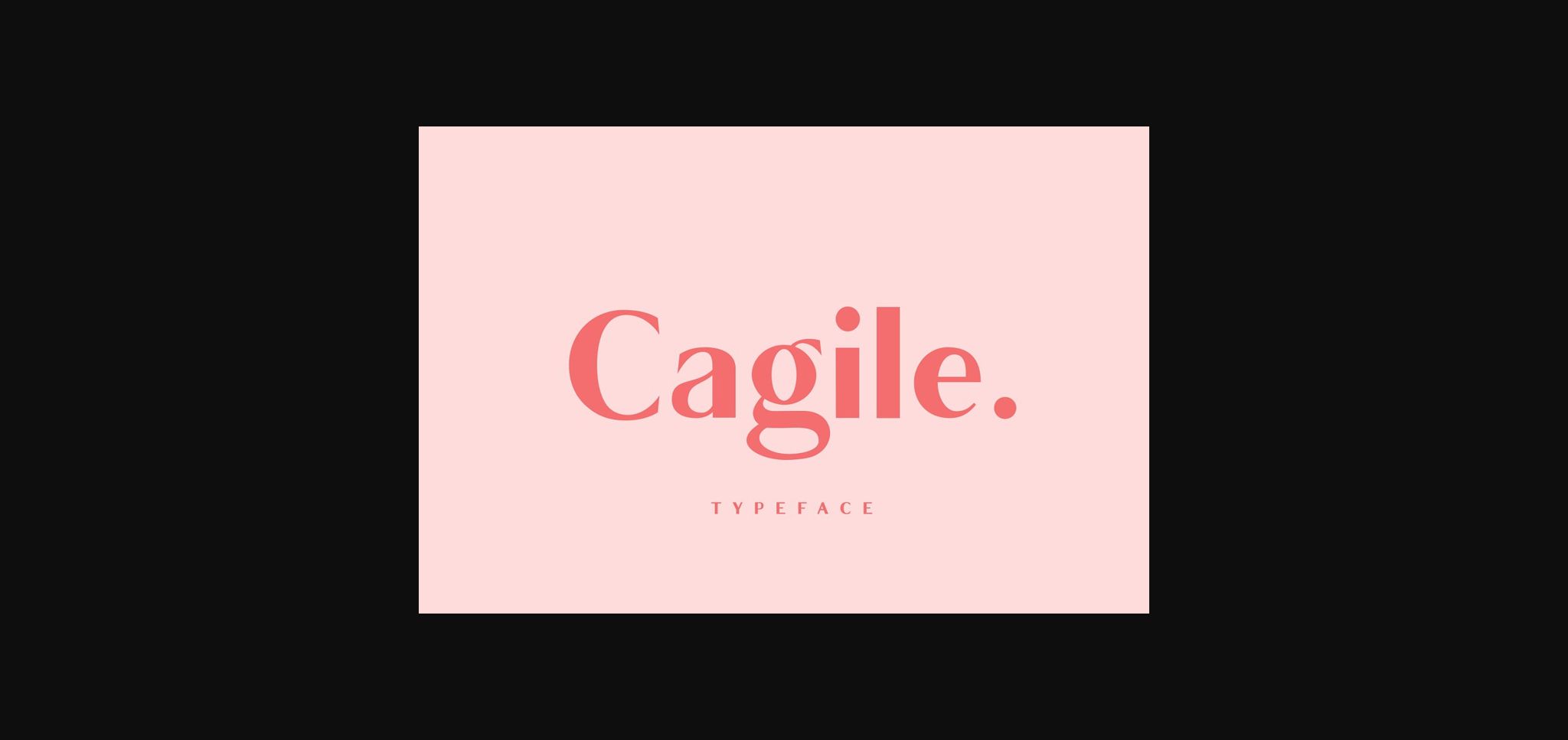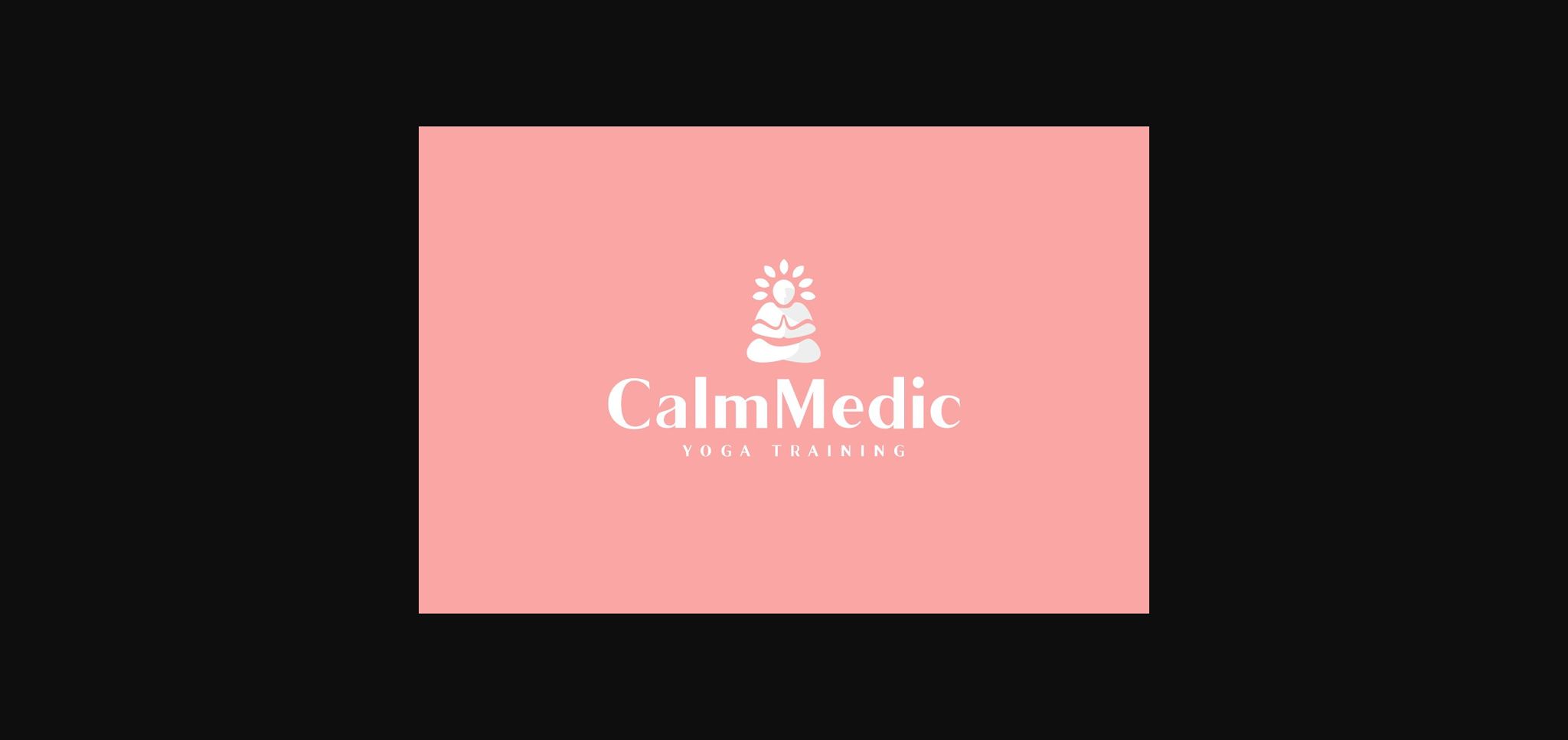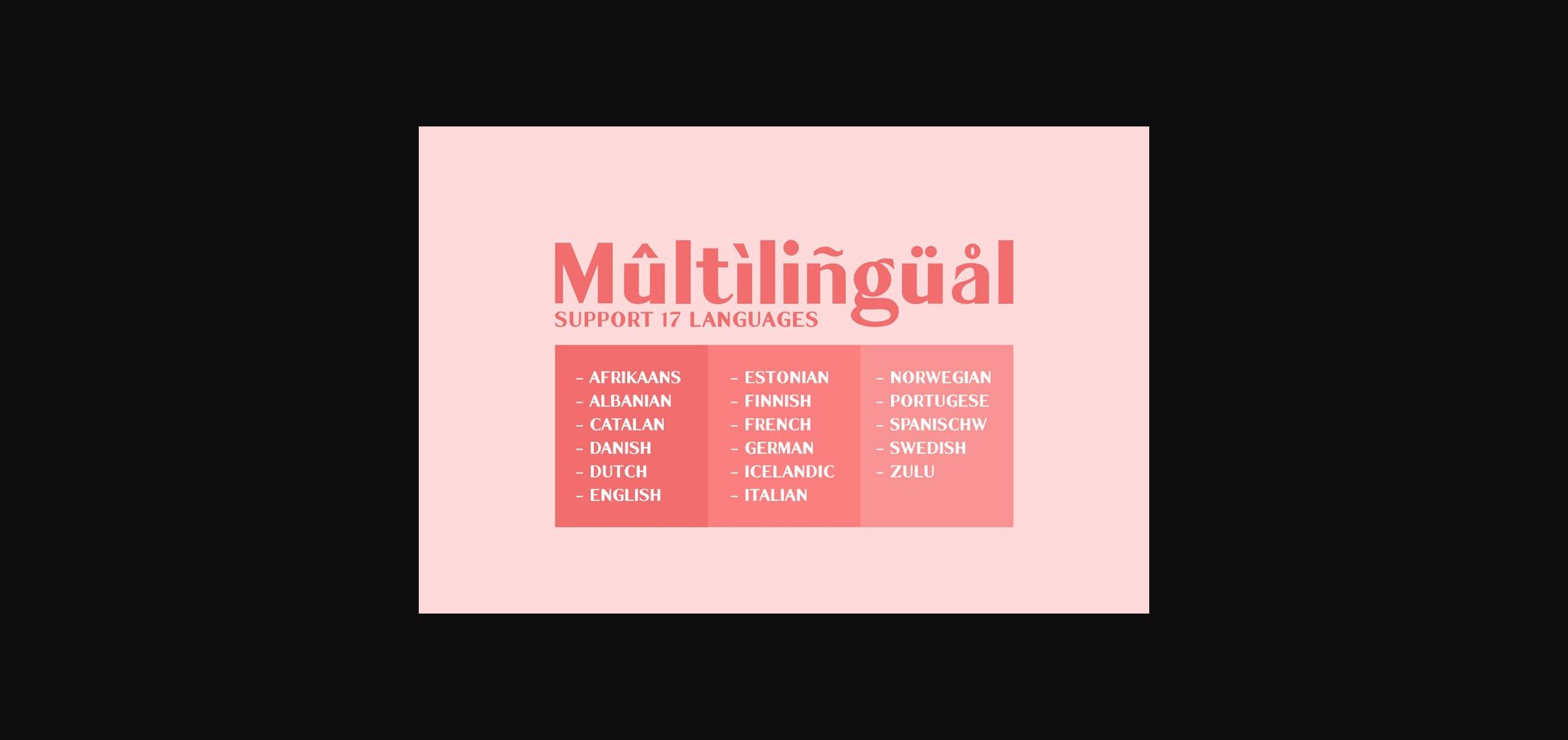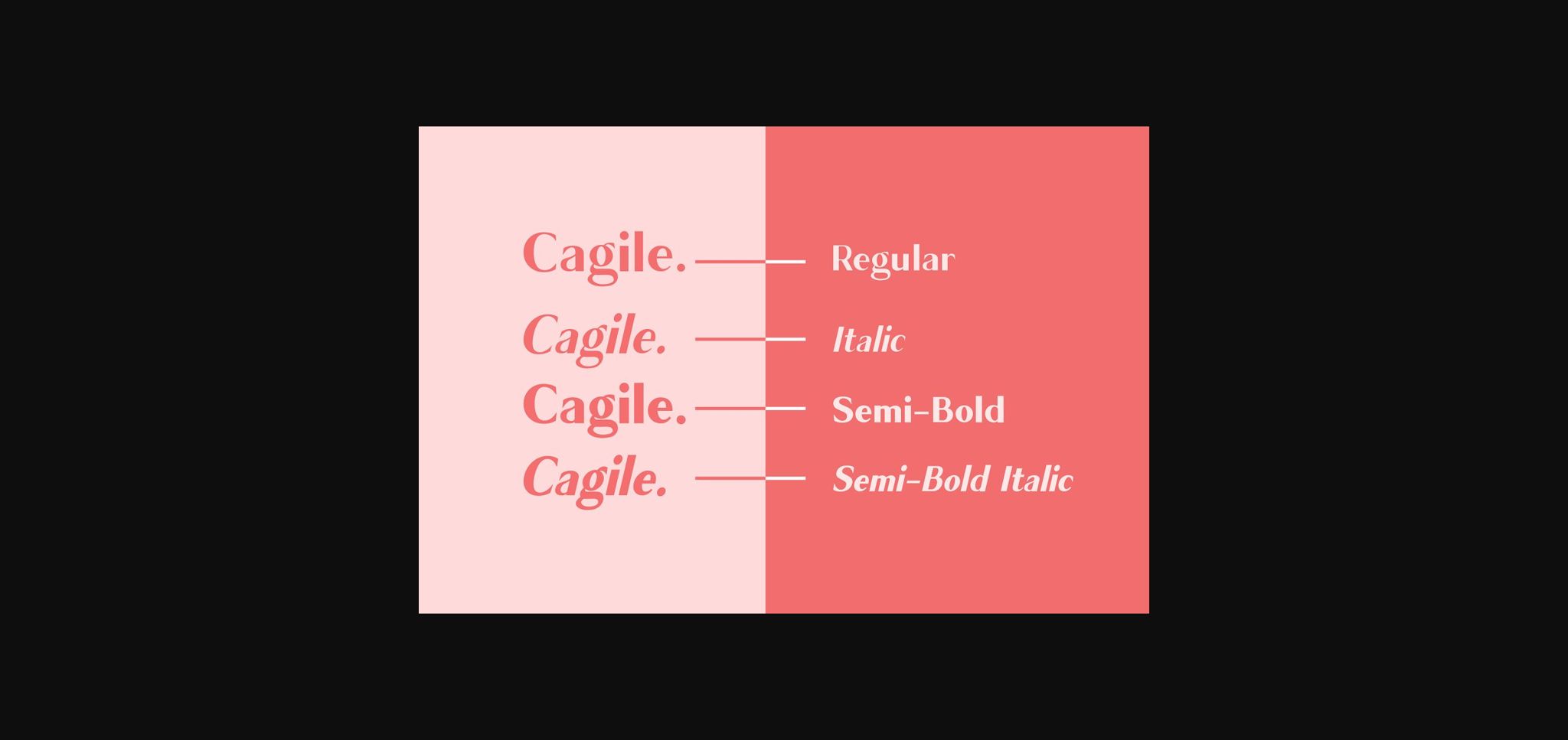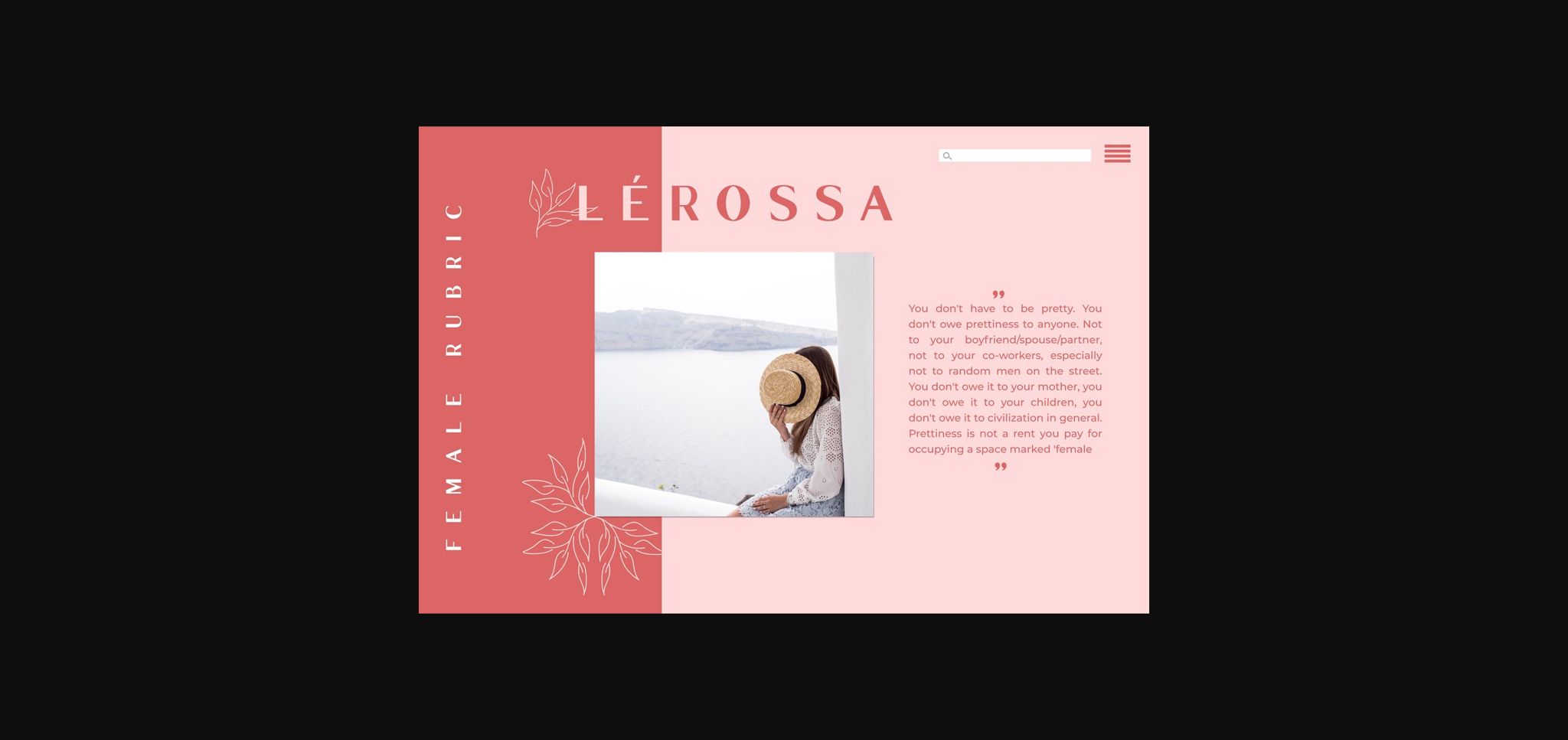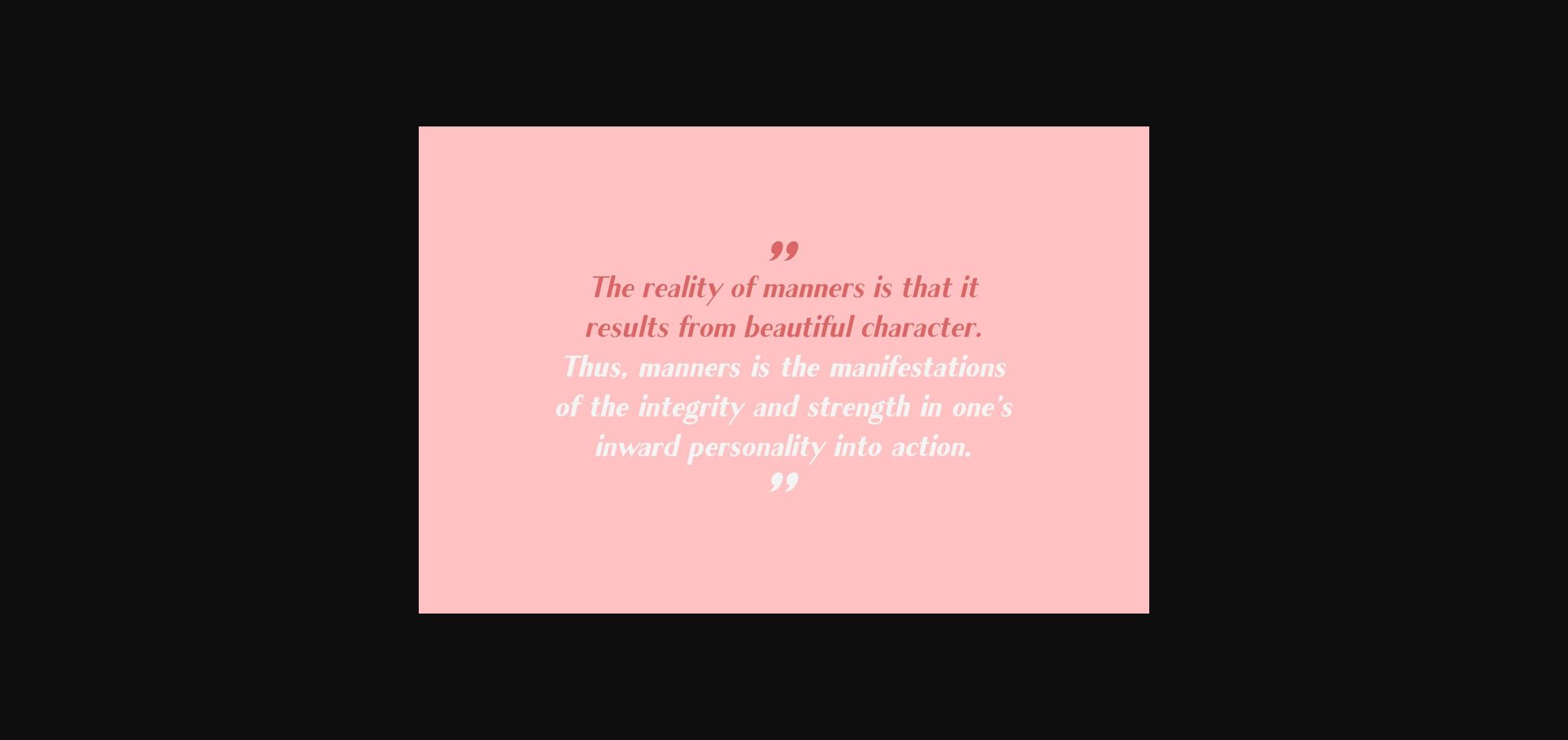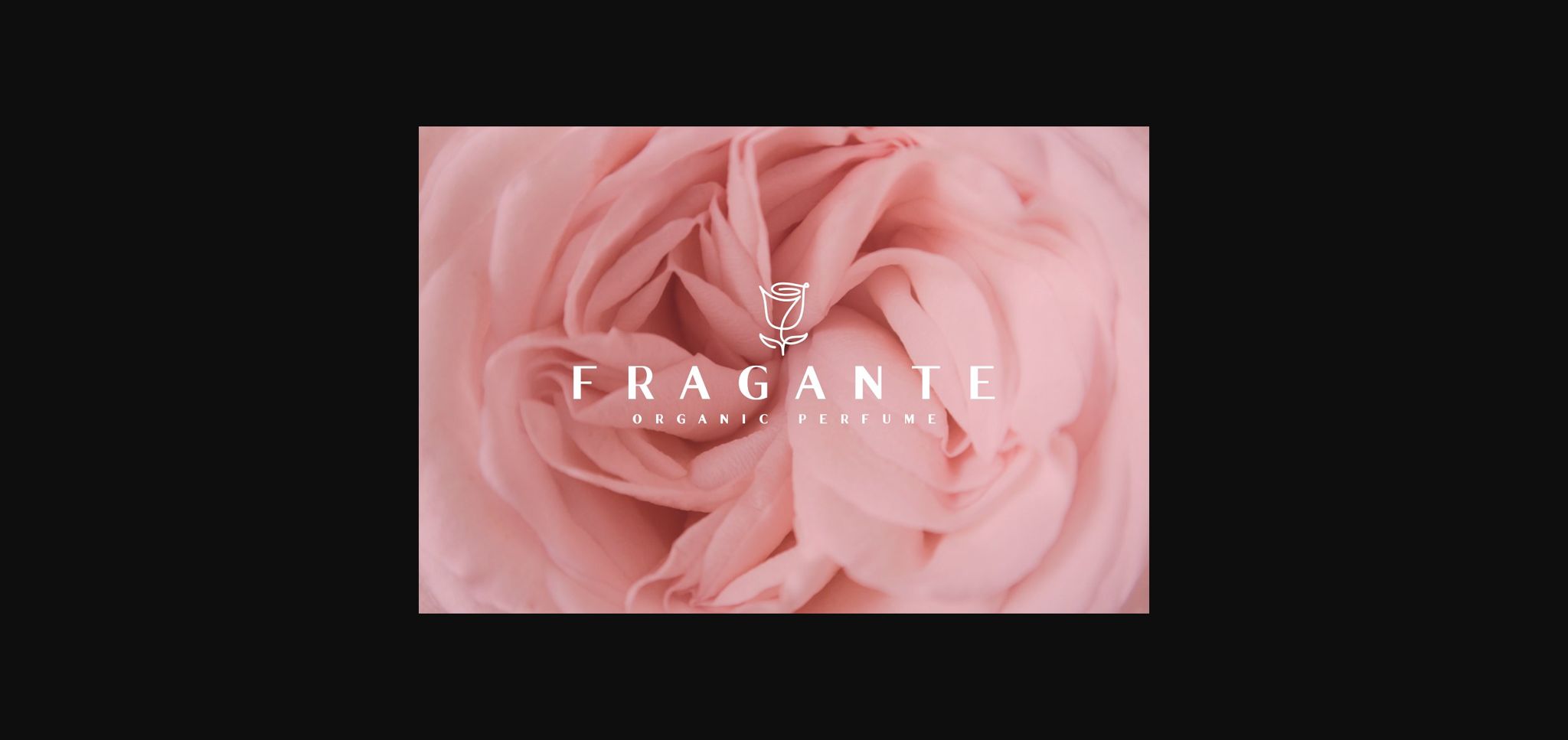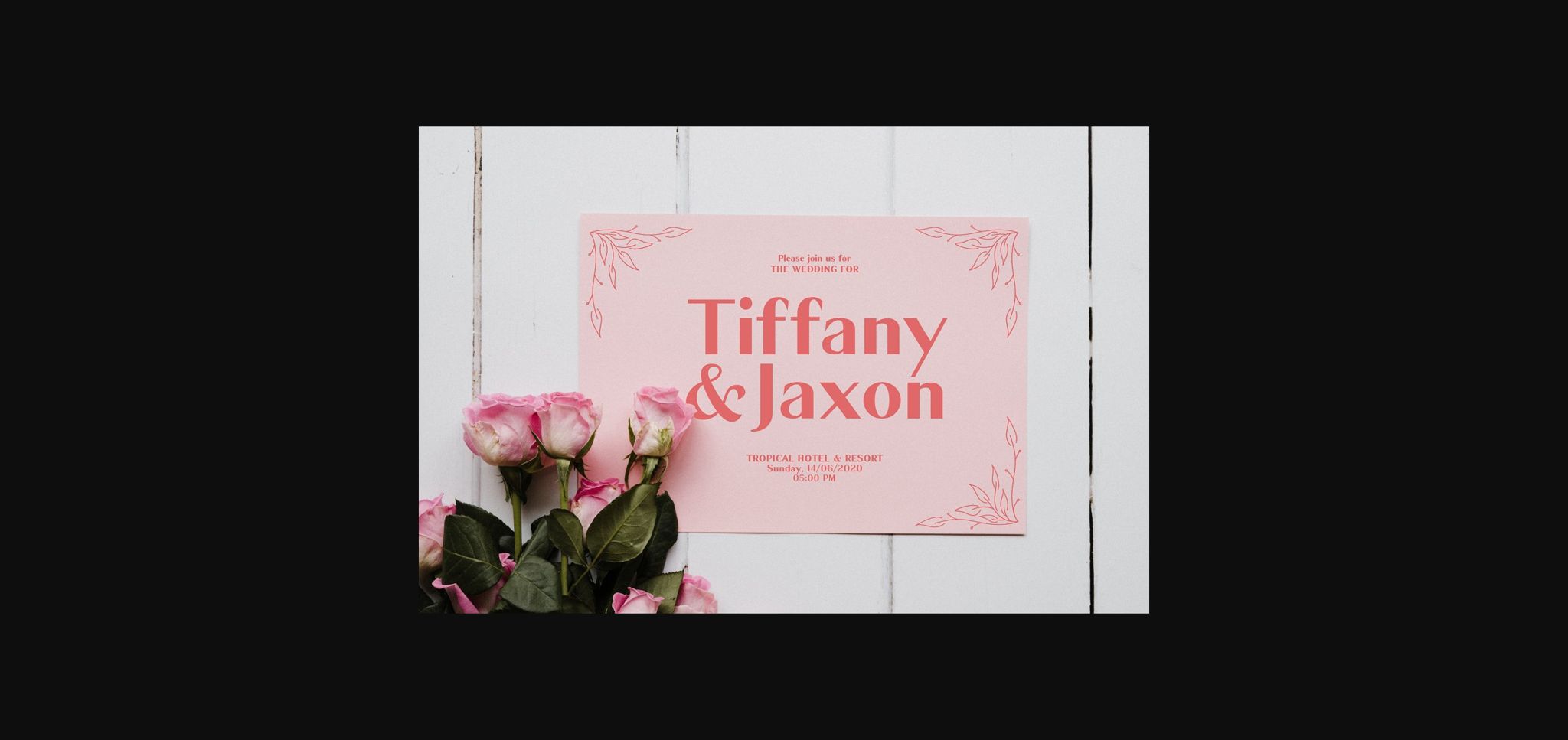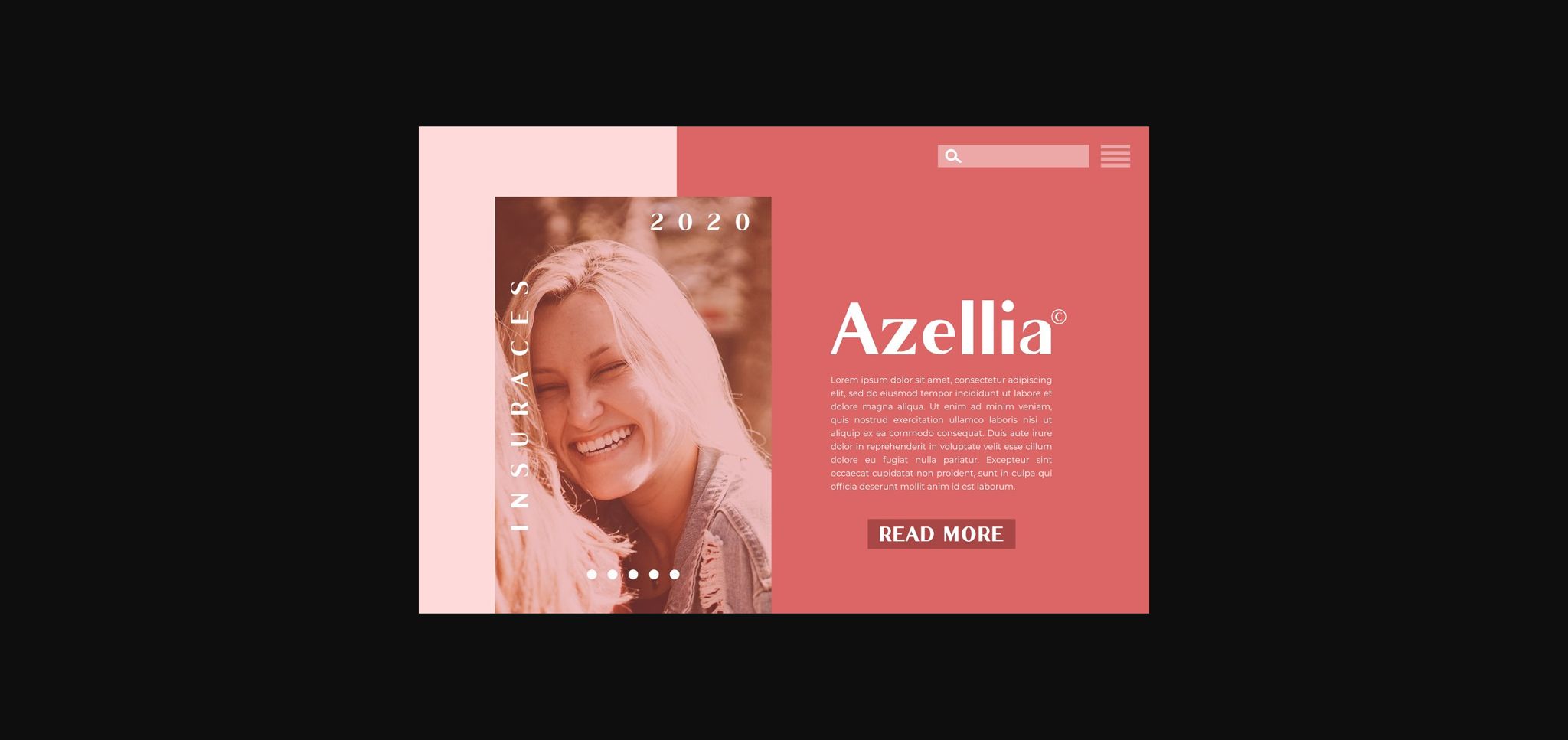
Cagile Font
About Cagile Font
Cagile is an elegant sans serif font. Suitable to a wide variety of designs due to its neat and simple style, Cagile has the potential to become your favorite go-to font, no matter the occasion!